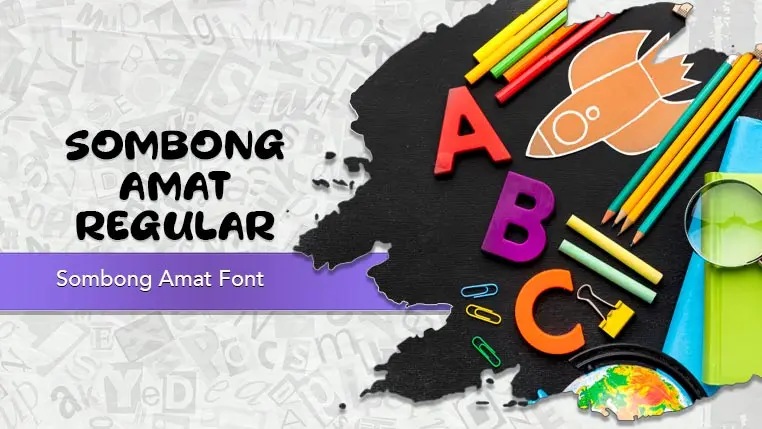
The Sombong Amat font family may be ideal for you if you enjoy working on an artistic design project. The lively, expressive look of this typeface, which was created by Khurasan, makes it ideal for Kid-Friendly Designs, Playful Branding and Logos, Cute Product Packaging and excellent for headlines in posters, flyers, advertisements, social media graphics, and website banners where you want to grab attention with a dose of humor and warmth. Great for informal parties, birthdays, or festive gatherings where you want the invitation to reflect a joyful and welcoming atmosphere. and other light-hearted visual projects.
Regular are the one primary font styles of the Sombong Amat font family. You may build dynamic, visually appealing text layouts with the distinct flair that each style offers. With crisp, readable lines and a relaxed tone.